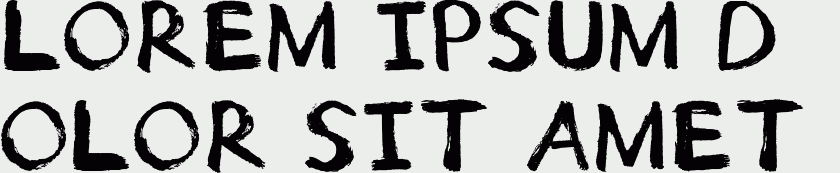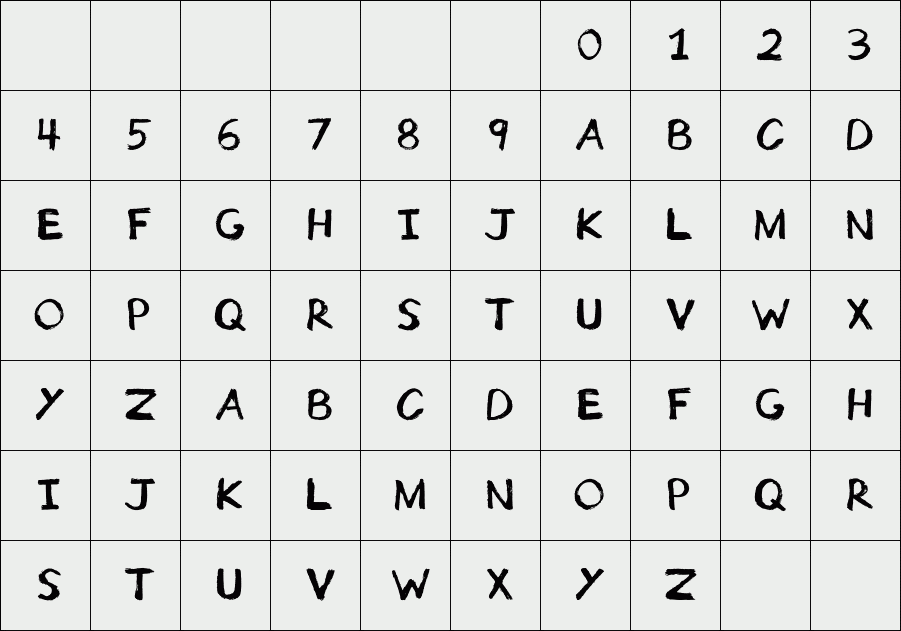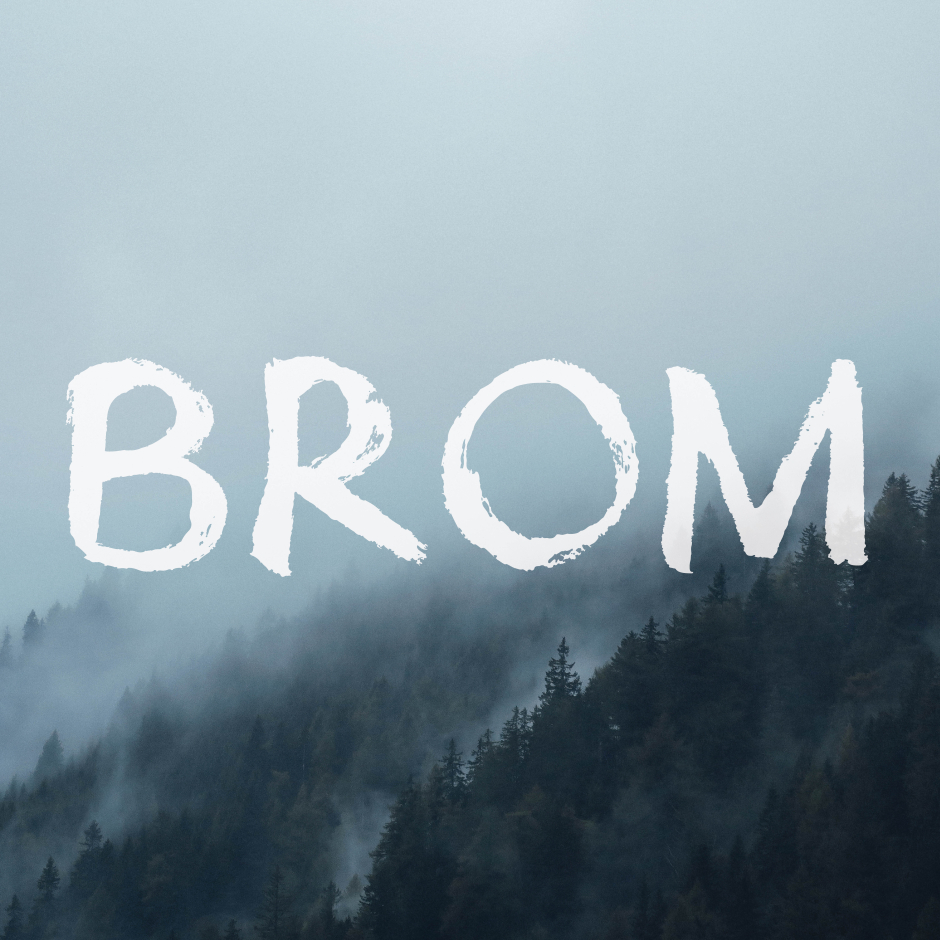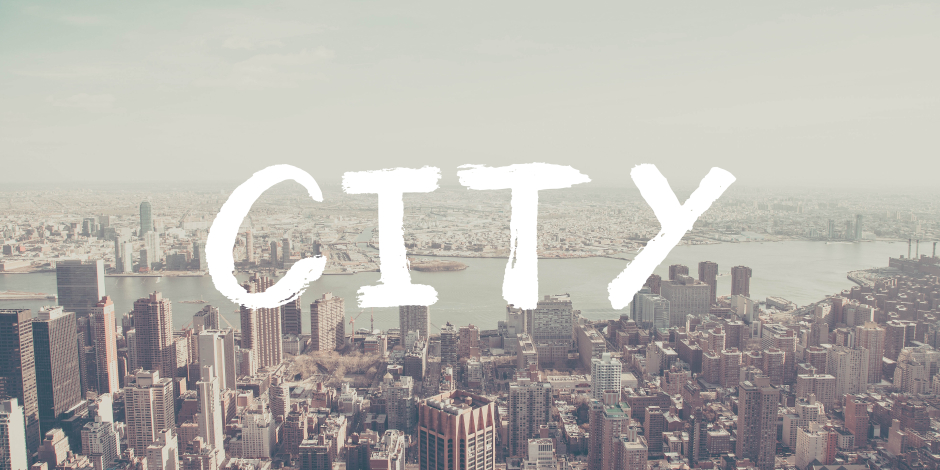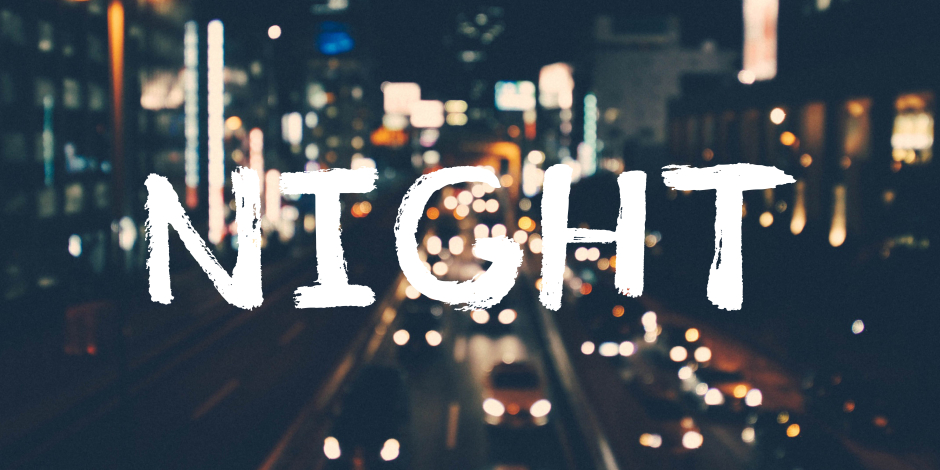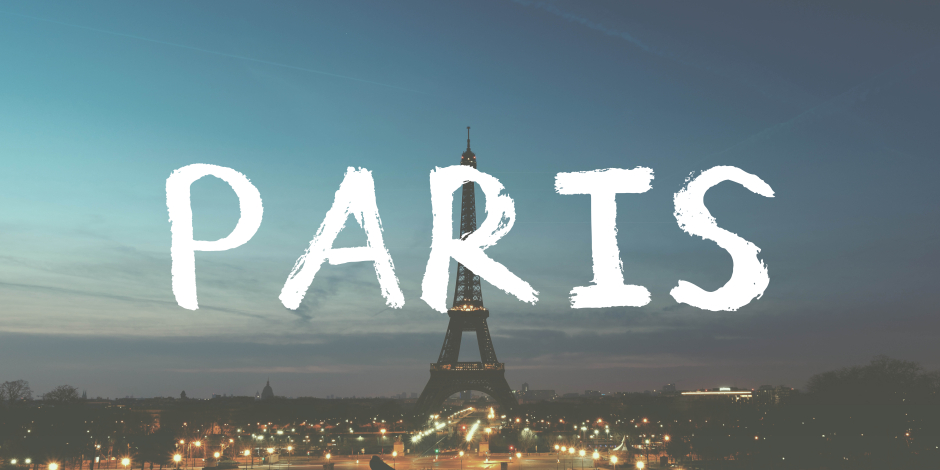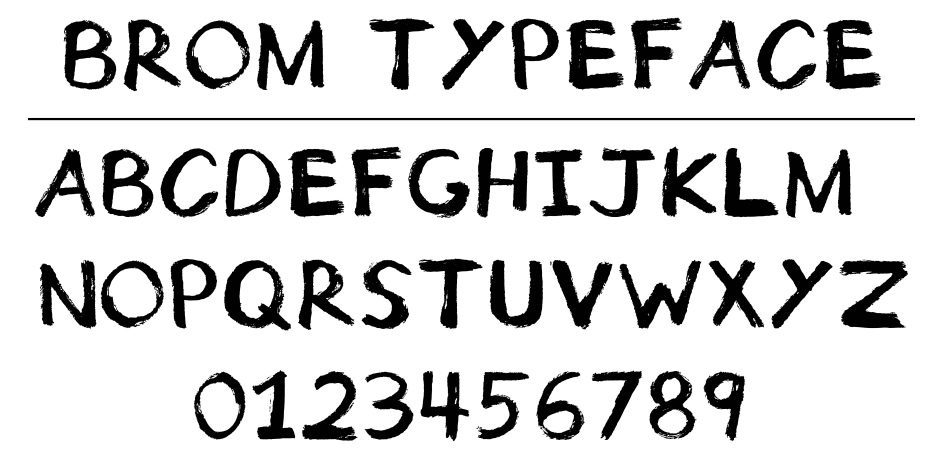
BROM
BROM is described as a Fat Brush Font. This font is a handpainted typeface, which was painted on paper and carefully translated into a font.
Designer: Grant Milne